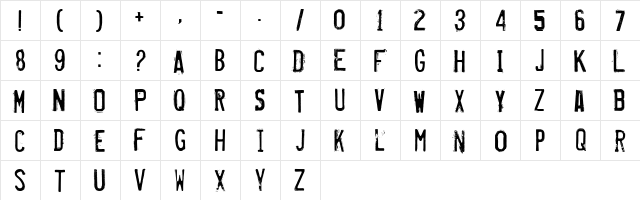
Misproject (r)ecife Font Preview
Misproject (r)ecife
Misproject (r)ecife Font Details
Design Context for Misproject Typeface
Misproject takes a measured approach to typography — its balanced proportions and neutral character make it a reliable workhorse for both digital and print work.